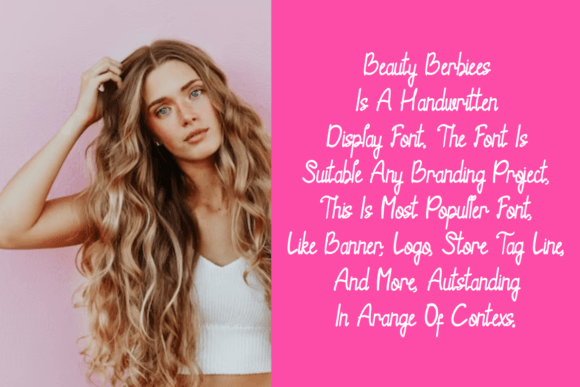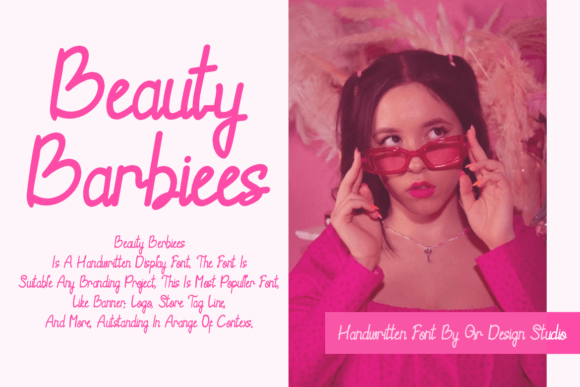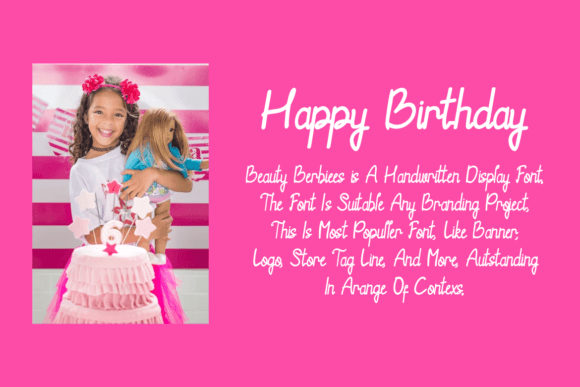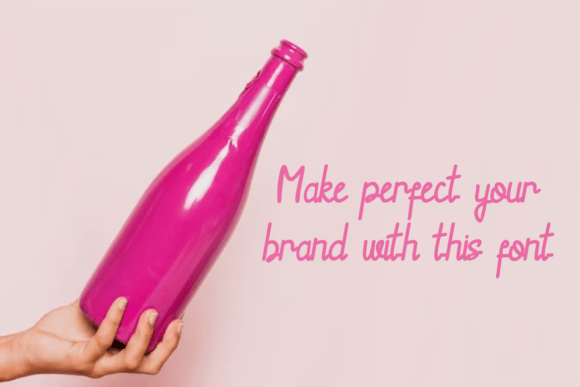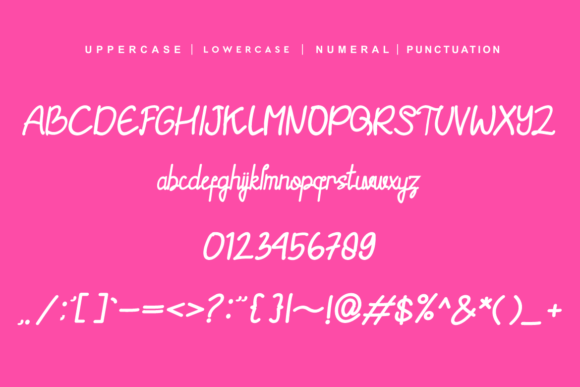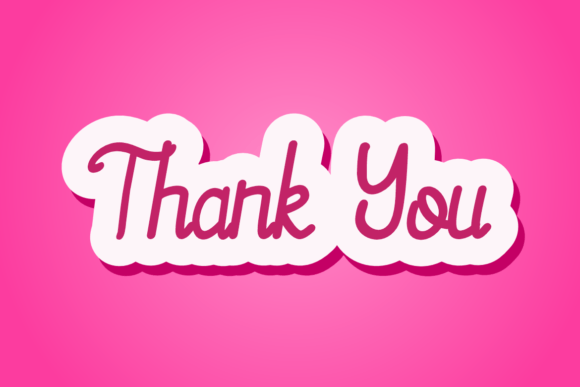
Introducing Beauty Barbiees Font: Elevate Your Designs with a Bold and Authentic Display Font
In the world of typography, fonts play a crucial role in conveying the tone and personality of a brand. For designers and crafters looking for a font that exudes confidence, sophistication, and glamour, Beauty Barbiees Font is an excellent choice. This bold and authentic display font is perfect for a wide range of branding projects, from logos and fashion brands to photography, quotes, and note-taking.
What Makes Beauty Barbiees Font Stand Out?
Beauty Barbiees Font is designed to make a statement. Its bold and authentic style is inspired by the world of fashion and beauty, making it an ideal choice for projects that require a touch of glamour and sophistication. The font’s unique characteristics include:
- Bold and eye-catching: Beauty Barbiees Font is designed to grab attention. Its bold style ensures that your message stands out, whether it’s used for a logo, heading, or quote.
- Authentic and unique: The font’s authentic style sets it apart from more traditional fonts. Its uniqueness ensures that your design will be memorable and distinctive.
- Versatile: Beauty Barbiees Font is suitable for a wide range of projects, from fashion brands and photography to quotes and note-taking.
Perfect for Fashion Brands and Photography
Beauty Barbiees Font is particularly well-suited for fashion brands and photography projects. Its bold and glamorous style is reminiscent of high-end fashion magazines and luxury brands. For fashion brands, this font can be used to create stunning logos, advertisements, and marketing materials that exude confidence and sophistication.
For photography projects, Beauty Barbiees Font can be used to add a touch of elegance and sophistication to captions, quotes, and other text elements. Its unique style ensures that your text will stand out against the background of your images, adding an extra layer of depth and visual interest.
Use Beauty Barbiees Font for Quotes and Note-Taking
Beauty Barbiees Font is not just limited to branding and advertising projects. It’s also perfect for quotes and note-taking. The font’s bold style ensures that your quotes and notes will stand out, making it easier to highlight important information and add visual interest to your text.
For crafters and journalers, Beauty Barbiees Font can be used to add a touch of personality and style to your journal entries, planners, and other craft projects. Its unique style ensures that your text will be visually appealing and engaging.
Why Choose Beauty Barbiees Font?
There are many fonts available that claim to be bold and authentic, but Beauty Barbiees Font stands out from the rest. Here are just a few reasons why:
- High-quality design: Beauty Barbiees Font is designed with high-quality and attention to detail, ensuring that it will look great in any project.
- Unique style: The font’s unique style ensures that your design will be memorable and distinctive.
- Versatile: Beauty Barbiees Font is suitable for a wide range of projects, making it a great addition to any designer’s toolkit.
In conclusion, Beauty Barbiees Font is a bold and authentic display font that’s perfect for designers and crafters looking for a font that exudes confidence, sophistication, and glamour. Its unique style, versatility, and high-quality design make it an excellent choice for a wide range of projects, from branding and advertising to photography, quotes, and note-taking. Whether you’re a professional designer or a crafter, Beauty Barbiees Font is sure to elevate your designs and add a touch of personality and style to your text.